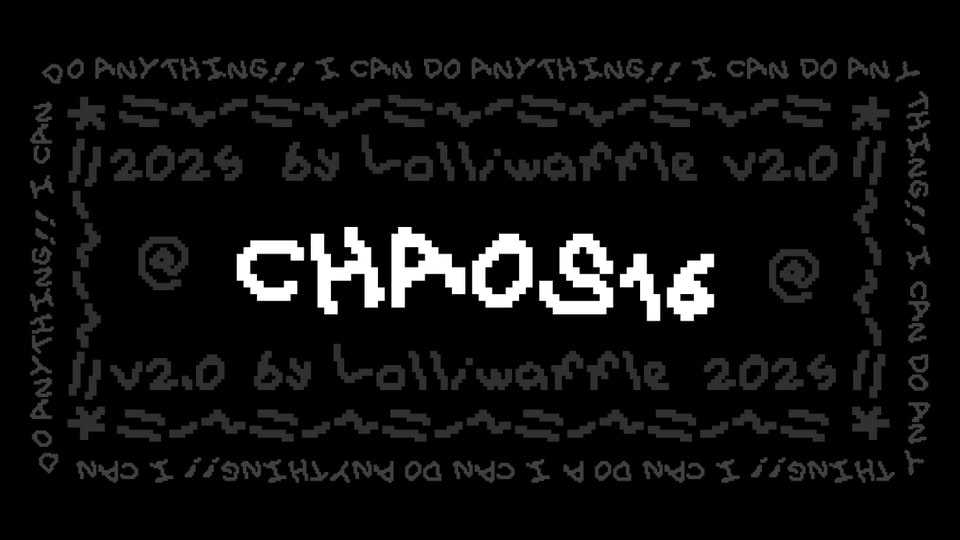
Download Chaos16 font, a quirky pixelated typeface that embodies the playful chaos of early digital culture with its wobbly, uneven design and retro aesthetic.
Designer: Roman Reznichenko